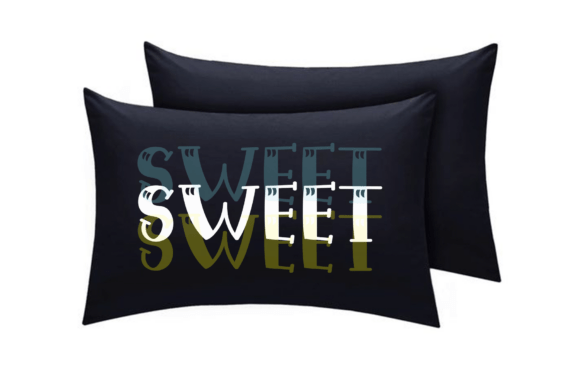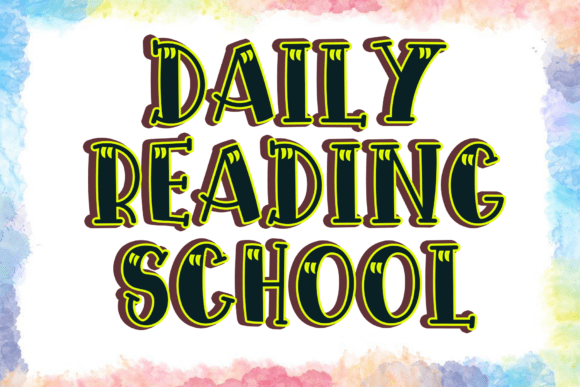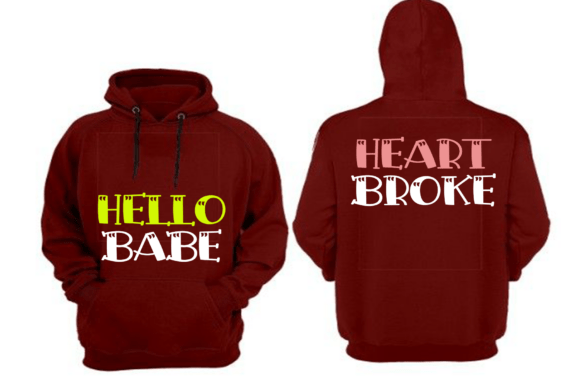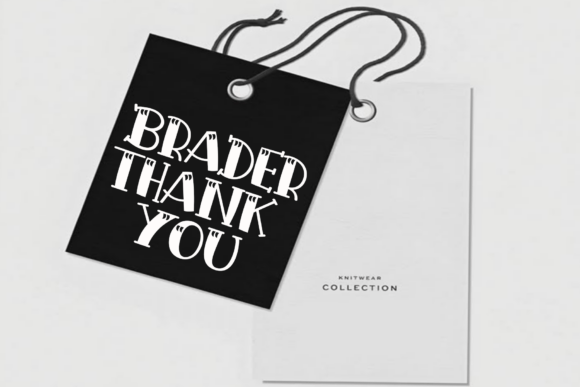
Introduction to Humor Funny Font
Humor Funny is a font that exudes softness and elegance.
With graceful strokes and a feminine touch, this font will elevate any design project to the highest level, be it branding, titles, wedding designs, invitations, signs, logos, labels, and more .
Key Features of Humor Funny Font
Why Choose Humor Funny Font?
Humor Funny Font offers exceptional quality and versatility, making it a valuable addition to your design toolkit. Whether you’re creating for personal projects or commercial use, Humor Funny Font delivers professional results.